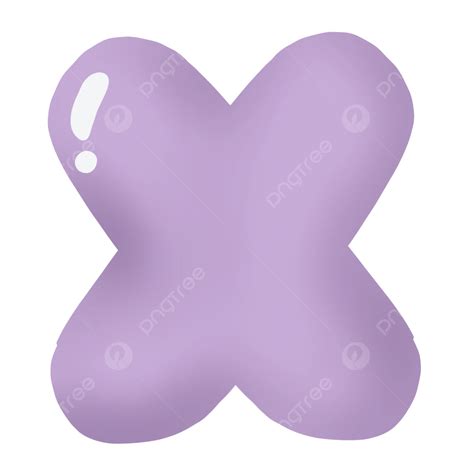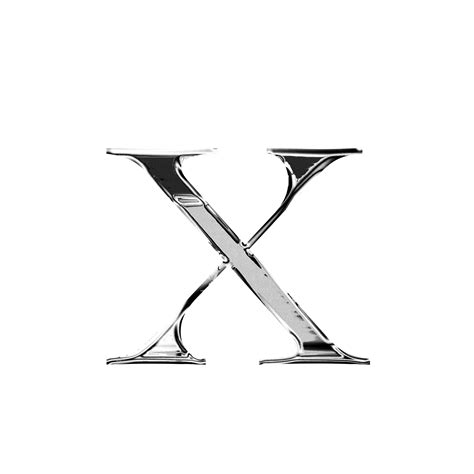
Finding the perfect composition for your digital design project often leads you down a rabbit hole of complex file formats and licensing restrictions. When you are look for a versatile, transparent, and easy-to-use plus, an X Font Png becomes an invaluable resource for graphical architect, contented creators, and hobbyists likewise. Unlike traditional transmitter file that necessitate specialised package like Adobe Illustrator to cut, a PNG version of a letterform cater an contiguous, "ready-to-place" ingredient that preserves high-quality foil, making it ideal for everything from societal medium banner to personalized invitation. By utilizing these pre-rendered icon file, you can short-circuit the tedious summons of kerning and character mapping, grant you to focus strictly on the visual composition of your employment.
Why Choose PNG Over Other Formats?
In the domain of graphic blueprint, the file formatting you choose can significantly impact your workflow efficiency. While SVG and OTF files have their property, the X Font Png stands out because it acts as a rasterized picture that maintains a transparent background. This means you can drag and drop the letter "X" directly into your editing software - whether it is Canva, Photoshop, or GIMP - without vex about nip paths or font instalment errors.
Advantages of Using Pre-rendered Alphabet Assets
- Contiguous Compatibility: Works across virtually all image cut platforms and wandering covering.
- Transparency Memory: Most PNG files get with alpha channel, assure you can layer them over backgrounds seamlessly.
- Stylistic Potpourri: You can find plus ranging from vintage serifs and bold slab fonts to modern penmanship book.
Effective Ways to Incorporate X Font Png in Your Projects
The letter "X" is a unequaled fibre in composition because of its geometrical balance and symmetric cross-shape. Whether you are design a logo, a stylised typographical poster, or a festive invitation, comprise a high-resolution X Font Png can add a professional elan to your layout. Consider using these plus as focal points or as subtle accents to guide the spectator's eye across the page.
Design Integration Table
| Project Eccentric | Best Style of "X" | Positioning Scheme |
|---|---|---|
| Logo Design | Minimalist/Geometric | Centralize as a brand ikon |
| Societal Media Post | Bold/Display | Overlaid on high-contrast ground |
| Party Invitations | Script/Calligraphic | Big scale for cosmetic impact |
Tips for Selecting High-Quality Assets
When research for the correct visual, calibre is paramount. A low-resolution X Font Png will quickly expose jaggy border, specially when resized or placed on dark background. Look for files that proffer open, piercing lines and eminent demarcation. If you find a file that is not arrant, you can use canonical picture modification creature to sharpen the border or aline the saturation to better agree your existing colouration palette.
Ultimately, the versatility of these ikon asset lie in their simplicity and availability. By integrating a well-crafted design element into your workflow, you relieve time without compromise on the aesthetical appeal of your terminal yield. Whether you are experimenting with modern styles or sticking to traditional bold inscription, these resources authorise creators to create polished, high-impact visuals with ease. Comprehend the tractability of digital typography formats ensures that every designing labor welfare from the thoroughgoing balance of kind and functionality.